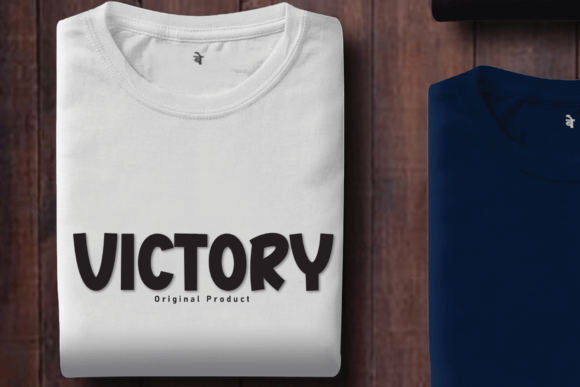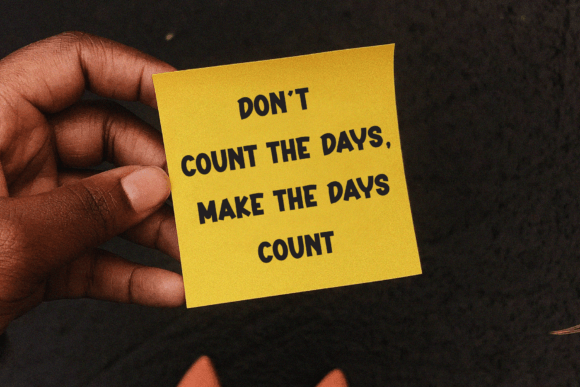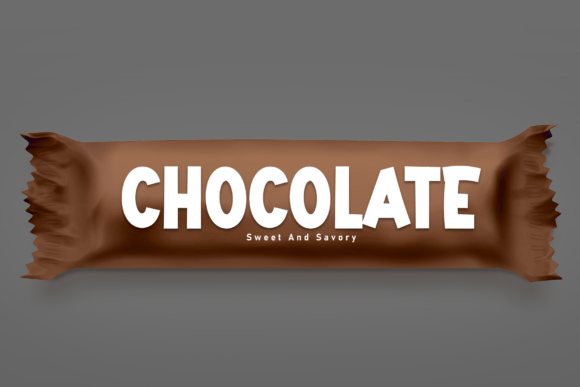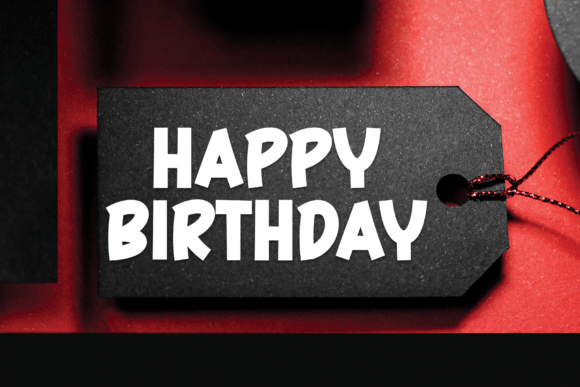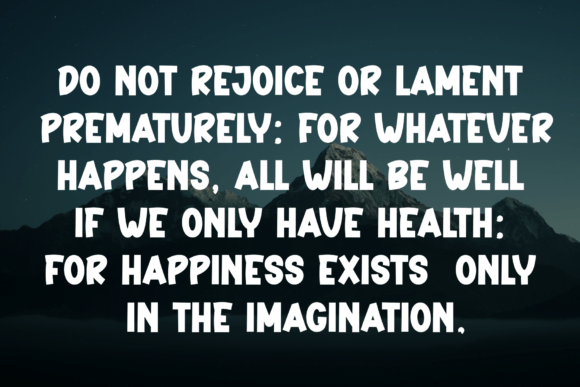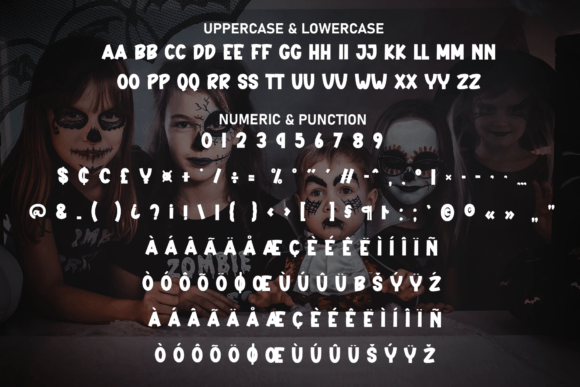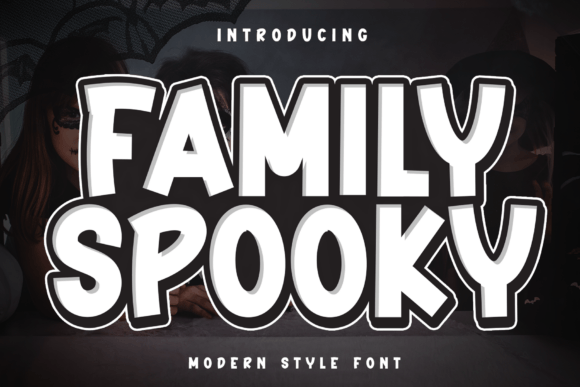
Introducing Family Spooky Font: The Ultimate Choice for Spooky-Themed Designs
Are you looking for a font that can add a playful and spooky touch to your designs? Look no further than the Family Spooky Font. This fun and bold display font is perfect for Halloween or any spooky-themed designs, and it’s sure to grab attention and set a fun, spooky mood.
What Makes Family Spooky Font So Special?
Family Spooky Font is a unique and eye-catching font that features playful, rounded letters that make it easy to read. The font’s bold and chunky design makes it perfect for headlines, titles, and short phrases, while its playful and whimsical feel makes it ideal for invitations, posters, and decorations.
Perfect for Halloween and Spooky-Themed Designs
Halloween is just around the corner, and with Family Spooky Font, you’ll be able to create spooky-themed designs that are sure to impress. From invitations and posters to decorations and party favors, this font is perfect for adding a festive touch to your designs. The font’s spooky and playful feel makes it ideal for:
- Halloween party invitations
- Spooky-themed posters and flyers
- Creepy and crawly decorations
- Ghostly and ghoulish party favors
Why Choose Family Spooky Font?
There are many fonts to choose from, but Family Spooky Font stands out from the rest. Here are just a few reasons why:
- Easy to Read: The font’s playful, rounded letters make it easy to read, even at small sizes.
- Attention-Grabbing: The font’s bold and chunky design makes it perfect for grabbing attention and setting a fun, spooky mood.
- Versatile: Family Spooky Font can be used for a wide range of designs, from invitations and posters to decorations and party favors.
- Fun and Playful: The font’s whimsical feel makes it perfect for adding a playful touch to your designs.
How to Use Family Spooky Font
Using Family Spooky Font is easy. Here are a few tips to get you started:
- Pair it with Other Fonts: Pair Family Spooky Font with other fonts to create a unique and eye-catching design.
- Use it for Headlines: Use Family Spooky Font for headlines and titles to grab attention and add a playful touch.
- Add it to Your Designs: Add Family Spooky Font to your designs to add a festive touch and set a fun, spooky mood.
If you’re a designer or crafter, you’re probably always on the lookout for new and exciting fonts to add to your arsenal. Here are a few tips for using Family Spooky Font in your designs:
- Experiment with Different Colors: Experiment with different colors to find the perfect combination for your design.
- Play with Texture and Patterns: Play with texture and patterns to add depth and interest to your design.
- Use it for Seasonal Designs: Use Family Spooky Font for seasonal designs, such as Halloween party invitations and decorations.
Family Spooky Font is a fun and bold display font that’s perfect for Halloween or any spooky-themed designs. With its playful, rounded letters and attention-grabbing design, it’s sure to add a festive touch to your designs and set a fun, spooky mood. Whether you’re a designer or crafter, Family Spooky Font is a great addition to your font collection.